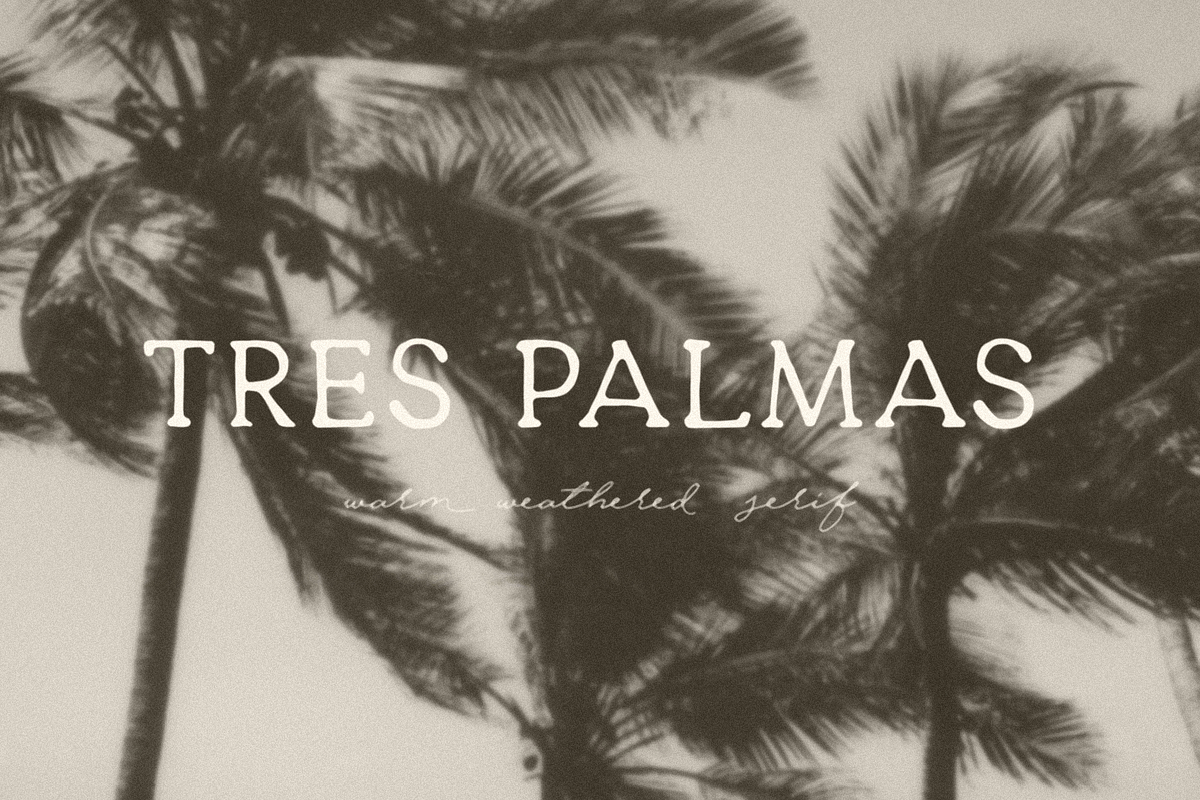
Tres Palmas Free Download
Tres Palmas Font Free Download is a laid-back, tropical-inspired typeface that brings sunny vibes and breezy personality to your creative projects. Please note, you are required to purchase this font for commercial use. It is available for free download for testing and personal projects only.
With its hand-drawn charm and relaxed character shapes, Tres Palmas is perfect for beach-themed branding, vacation posters, surf shop logos, summer invitations, apparel design, and tropical packaging. It captures the essence of island living—playful, warm, and effortlessly cool.